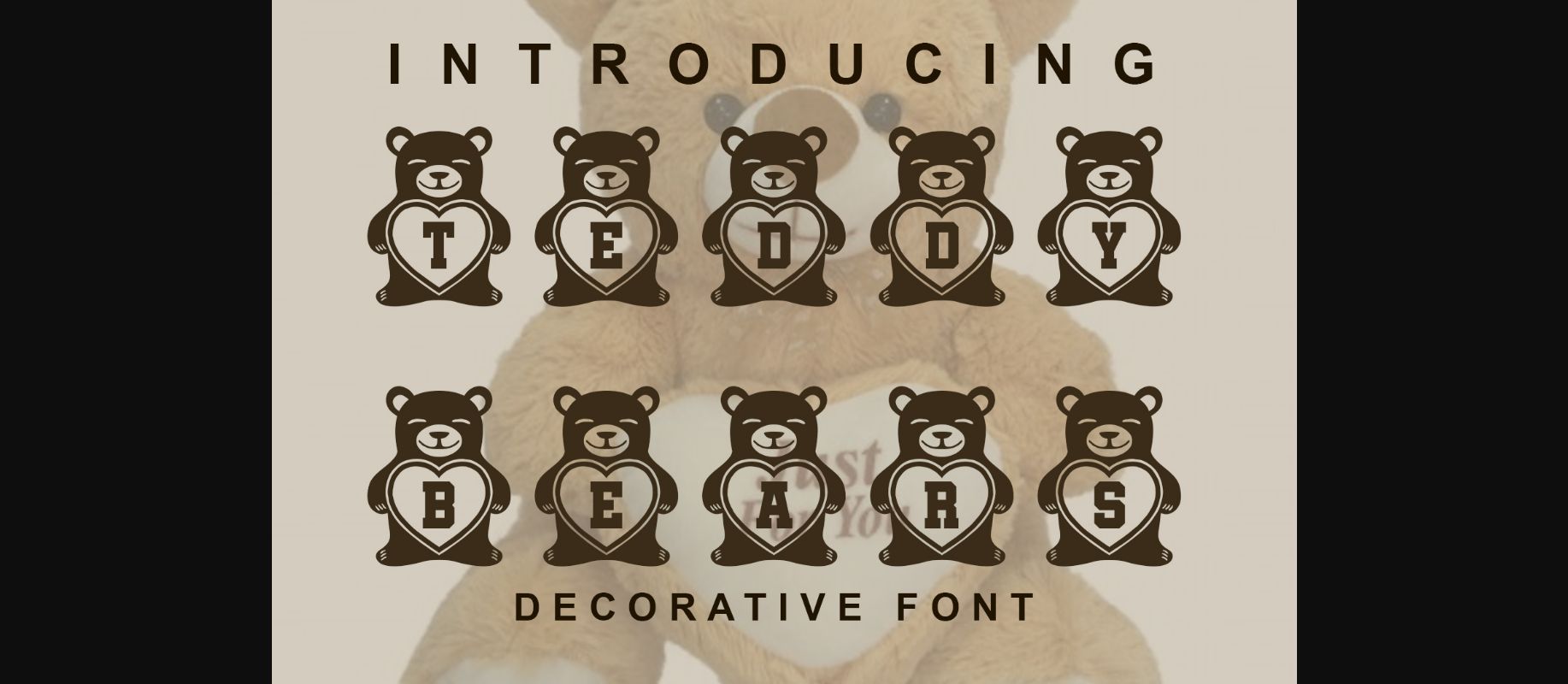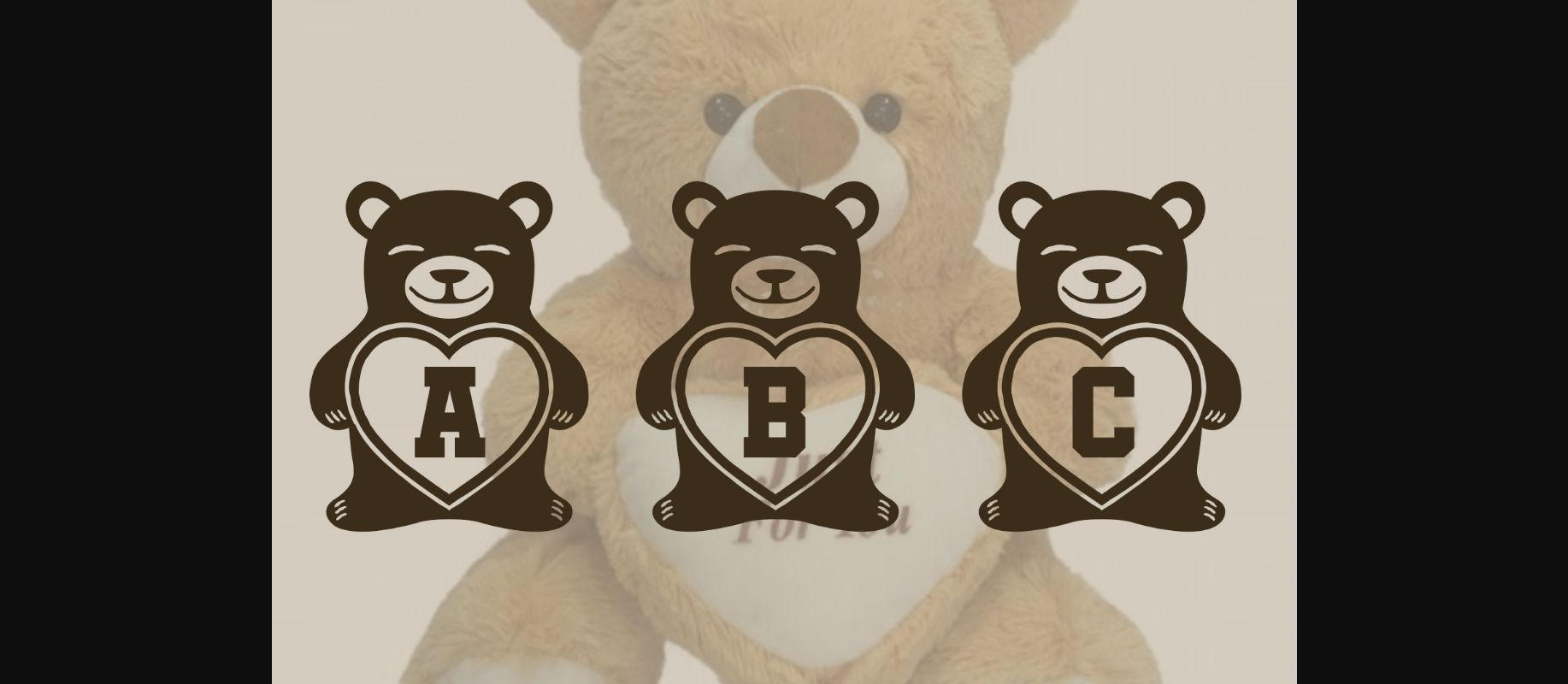
HomeDecorative FontsTeddy Bears Font Decorative Fonts Teddy Bears Font FacebookXPinterestWhatsApp 1 of 2 About Teddy Bears Font Teddy Bears is an awesome decorative typeface. Its letters are decorated with cute little bears. DOWNLOAD NOW People also explored Amazed Emerald Font Starter Green Tea Font Michaela Font Green Leaf Font Little Parrot Font Mountone Font Anhay Font Redwood Font 350 0 TagsTeddy Bears Font Previous articleFencepost FontNext articleNanuheu Font LEAVE A REPLY Cancel reply Comment: Please enter your comment! Name:* Please enter your name here Email:* You have entered an incorrect email address! Please enter your email address here Website: Save my name, email, and website in this browser for the next time I comment. Personal Use Free Bebas Neue Font Personal Use Free Read more about this font Pridaem Cooper Personal Use Free Read more about this font December Christmas Personal Use Free Read more about this font Susanna Personal Use Free Read more about this font BLOG Where to Buy American Fonts Online in 2024 Where to Buy American Fonts Online: The Ultimate Guide for 2024 Looking for the perfect American font to elevate your design projects? You're in the... Free Fonts Risk: Why Free Fonts Can Be Dangerous for Designers Elegant Wedding Invitation Fonts – Handwritten & Script Fonts Best Fonts for YouTube Videos: Make Your Thumbnails Stand Out